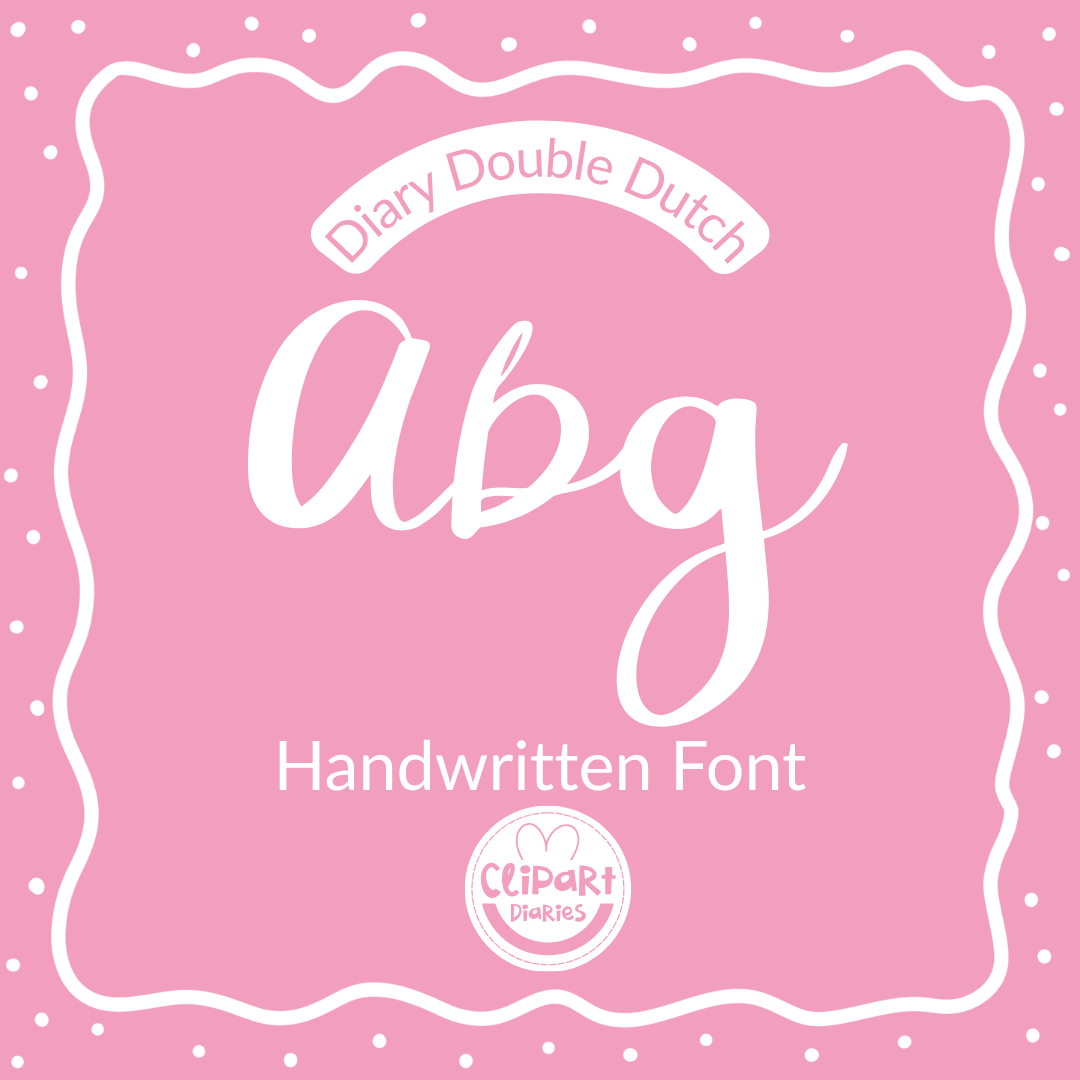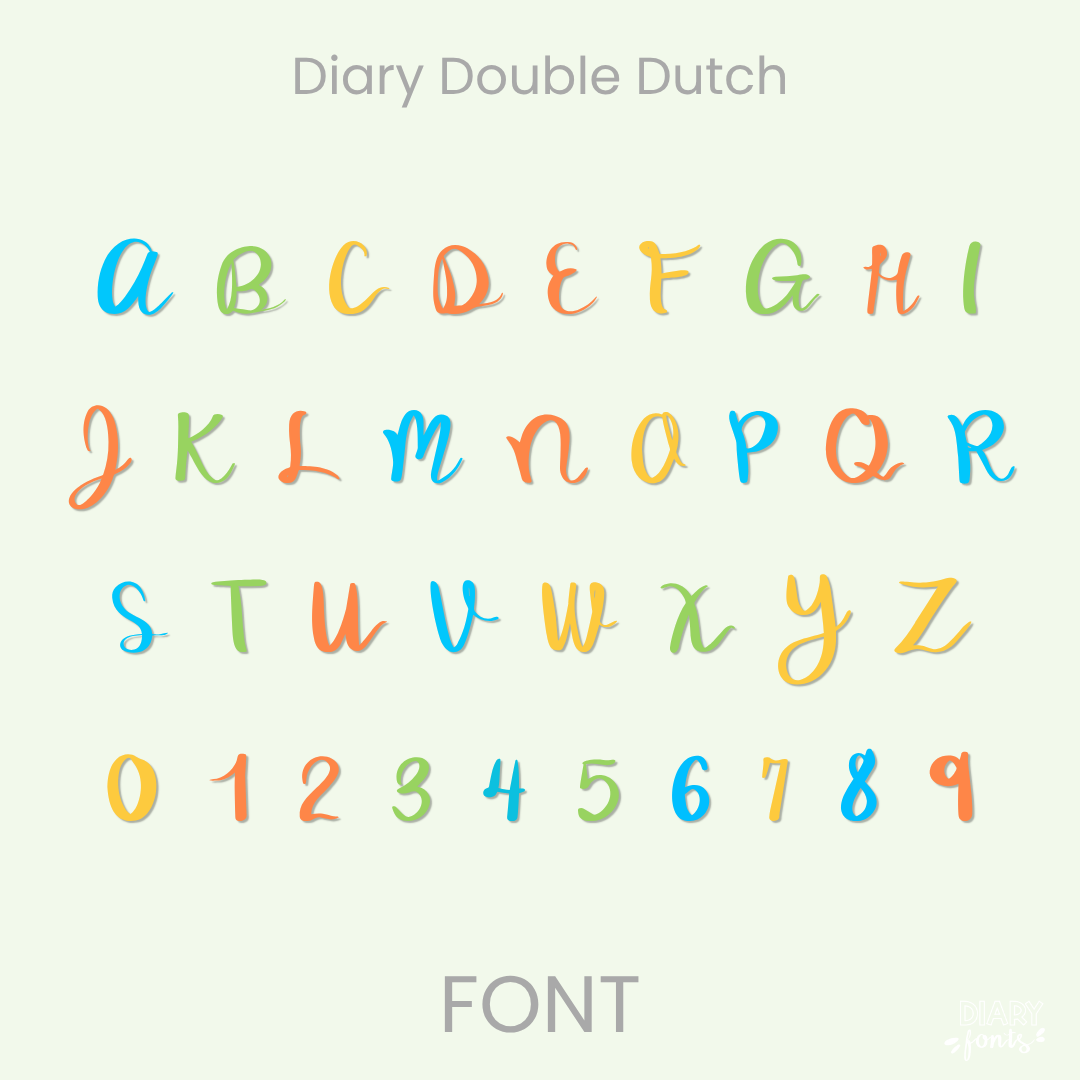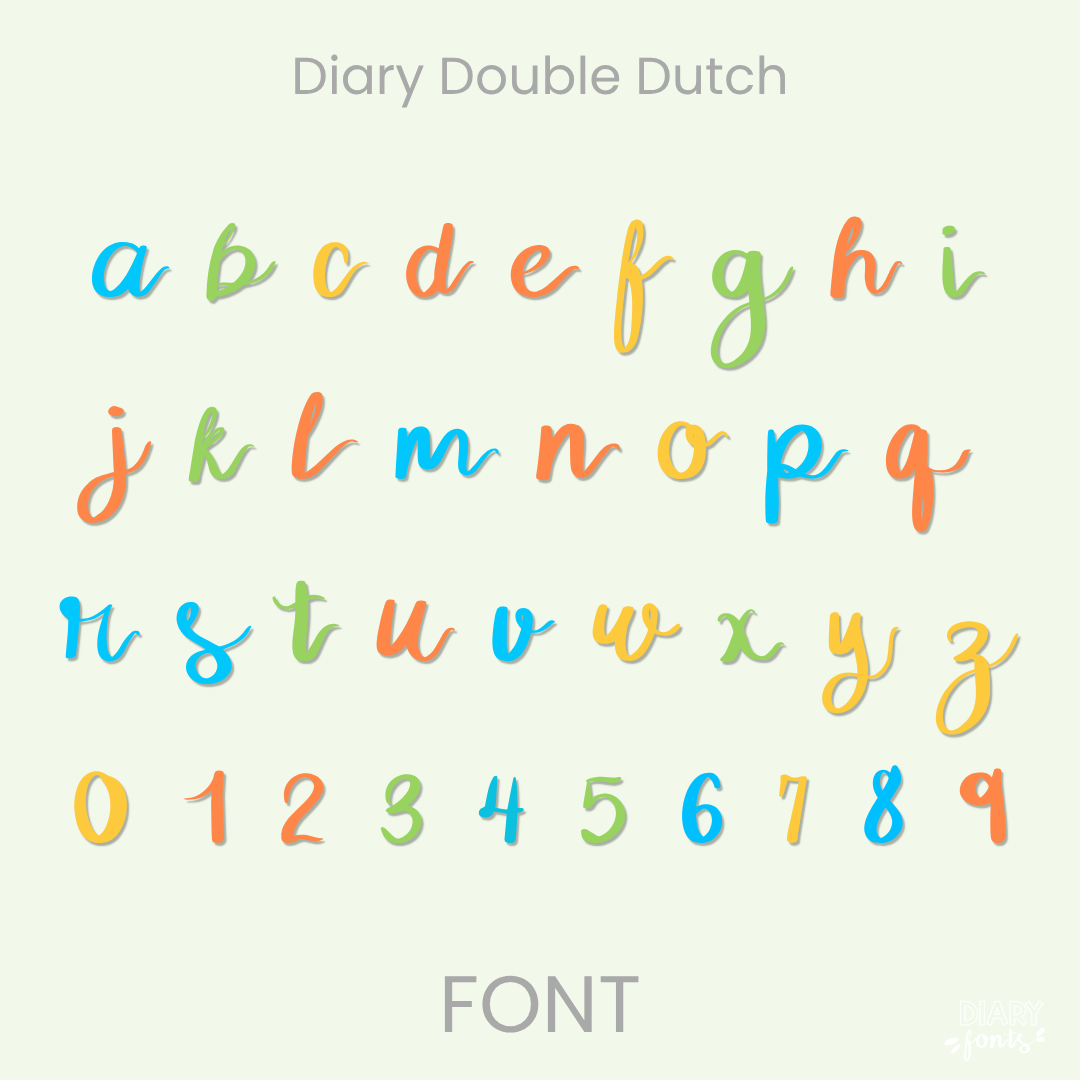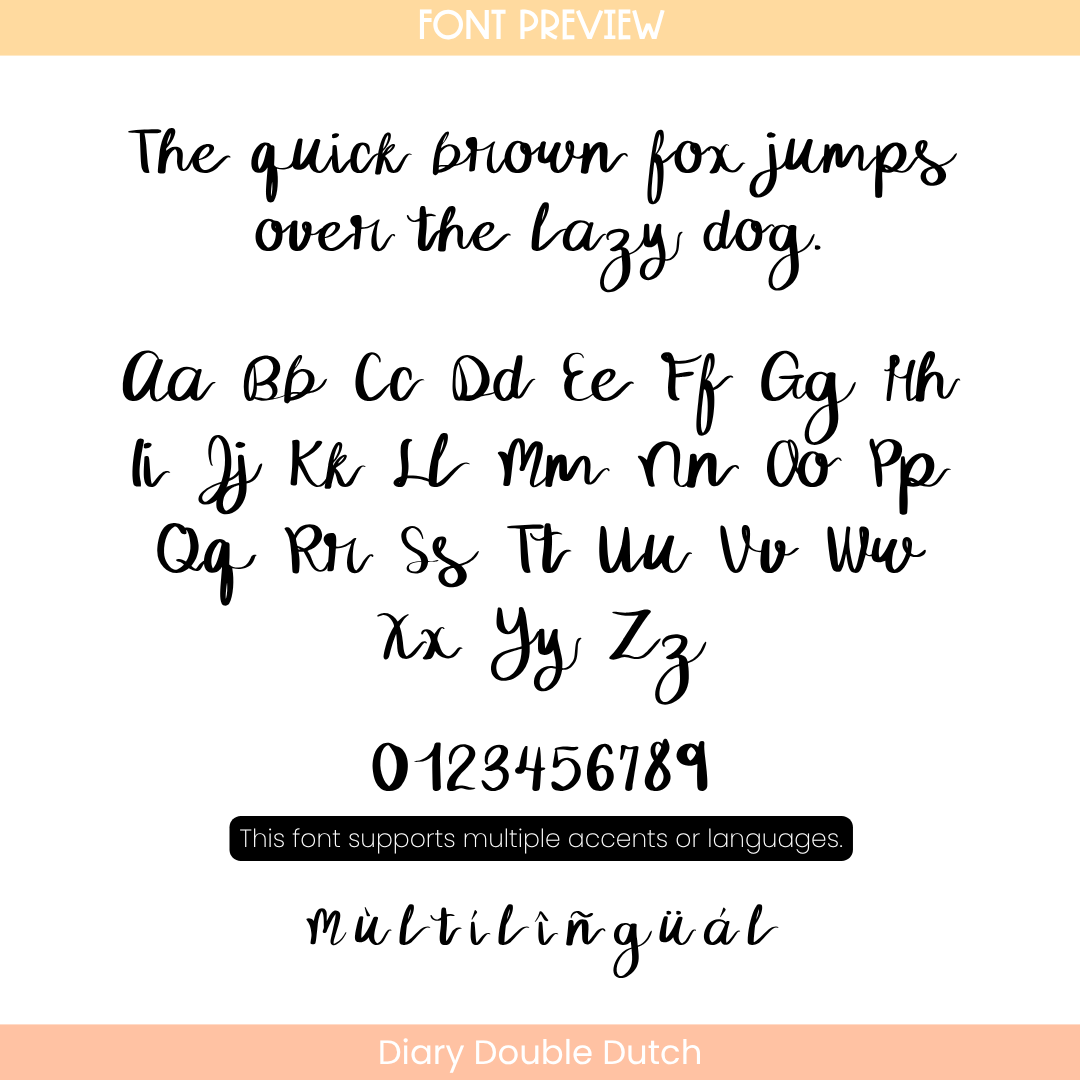
If you want to give your projects a graceful and personalized look, Diary Double Dutch is an excellent choice. It features rhythmic, fluid cursive characters that mimic a sophisticated calligraphy style while maintaining excellent clarity. This makes it a stunning option for eye-catching slide headers, elegant classroom decor, decorative labels, and poetry or writing prompts. The font includes a full set of uppercase and lowercase cursive letters, numbers, and multiple accents to support different languages. It is ready for use in Canva, MS Office, and Adobe Apps, and it works perfectly with iPad apps like GoodNotes and Procreate. Whether for personal classroom designs or commercial teacher resources, this font adds a polished and beautiful hand-drawn aesthetic to your work.